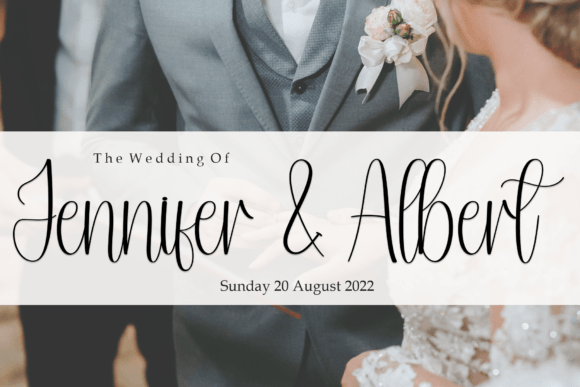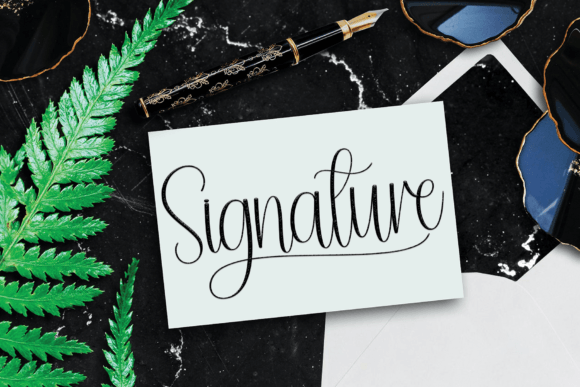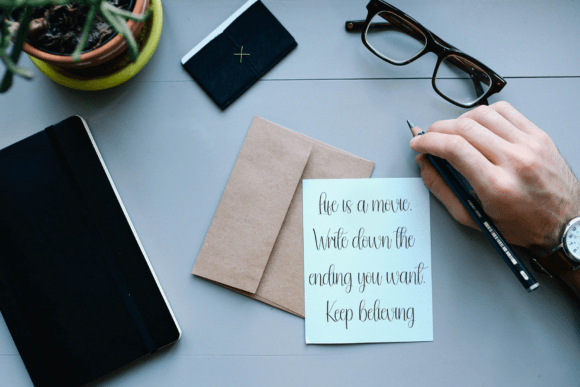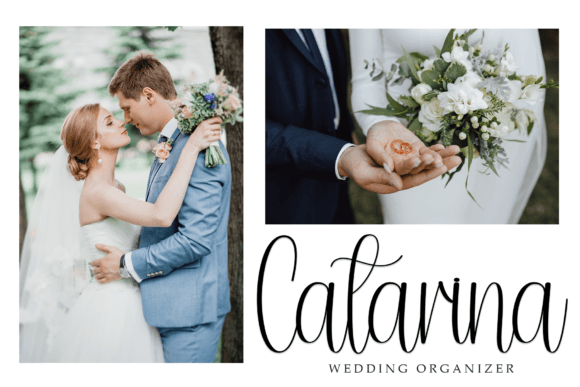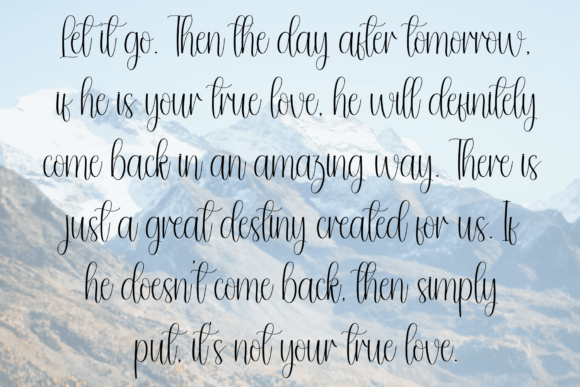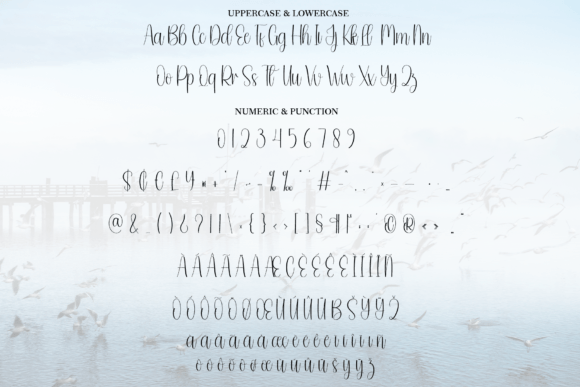
Introduction to Migration Font
Have you ever stumbled upon the perfect font for a creative project, and it instantly sparks a wave of excitement and inspiration? That’s exactly what happened when I discovered the Migration Font. As a designer, I’m always on the lookout for unique and high-quality design resources that can elevate my work and make it stand out. And let me tell you, the Migration Font did just that!
This sweet and friendly handwritten font is a treasure trove for designers who want to add a touch of warmth and personality to their designs. Whether you’re working on a wedding invitation, a birthday card, or any other creative project, the Migration Font is an ideal choice. Its cute and fun style is sure to delight your clients and make your designs shine.
Key Features of Migration Font
- High-quality design resource for creative projects, ideal for use in various contexts, including branding and advertising.
- Includes a range of characters and glyphs, making it a versatile font for use in various languages and creative applications.
- Unique characteristics include a modern and sleek design, making it perfect for use in contemporary and creative projects, and a wide range of language support.
Honest Review: Migration Font
I recently had the chance to work with the Migration Font, and I’m excited to share my thoughts with you. As a designer, I’m always on the lookout for high-quality design resources that can help bring my creative projects to life.
One of the things that stands out about the Migration Font is its clean and modern aesthetic. The font is perfect for any project that requires a touch of sophistication and elegance. I particularly loved the way it looks with a transparent background, adding an extra layer of depth to my designs.
Here are some of the things that work well with the Migration Font:
- ✨ High-quality design: The font is crisp and clear, making it perfect for both digital and print projects.
- ✨ Versatile: The Migration Font is suitable for a wide range of creative projects, from branding and advertising to web design and editorial work.
- ⚠️ Limited character set: The Migration Font only comes with a limited character set, which may not be suitable for projects that require a wide range of characters.
- ⚠️ Not suitable for complex layouts: While the font looks great on its own, it may not be the best choice for complex layouts or designs that require multiple fonts.
Migration Font